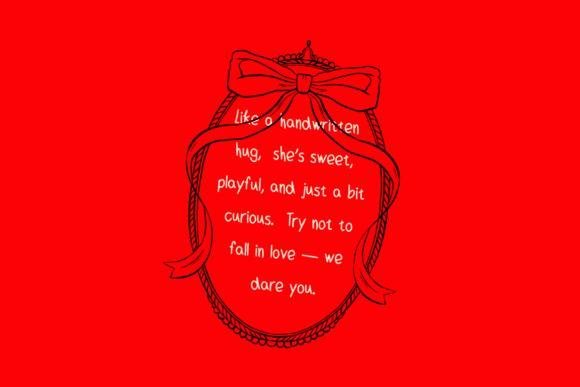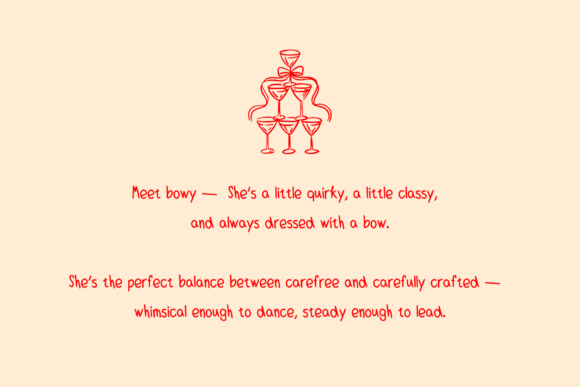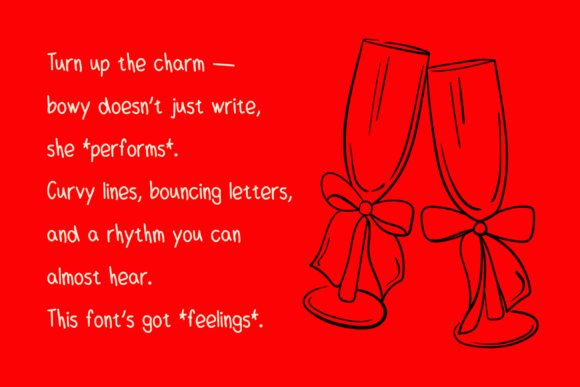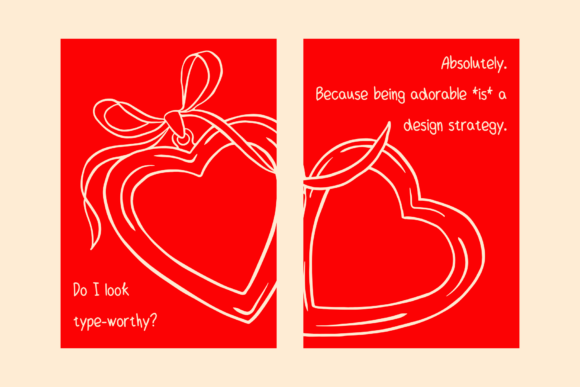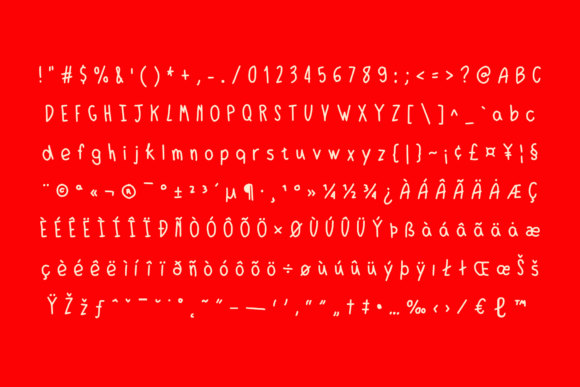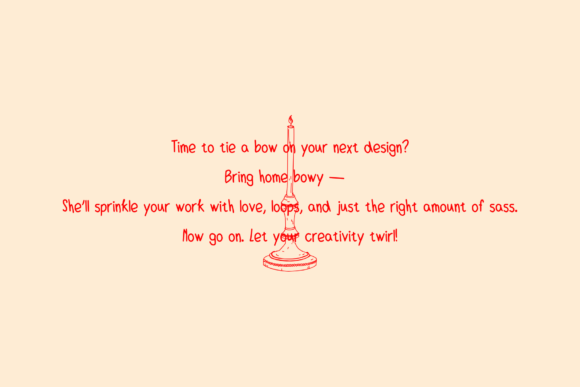
Bowing to the Perfect Font: A Creative’s Dream Come True
Have you ever been inspired by a beautiful handwritten note, the way the words dance across the page with a touch of personality and whimsy? I know I have! There’s something special about seeing a font come alive on paper, and today, I’m thrilled to introduce you to a font that will make your creative heart skip a beat: the Bowy Font.
This charming handwritten font is more than just a pretty face – it’s a valuable tool for designers looking to add a touch of elegance and playfulness to their designs. With 231 expressive glyphs, Bowy Font is perfect for branding, packaging, invitations, greeting cards, and creative social media posts. Whether you’re designing something romantic, quirky, or delightfully fun, Bowy Font is ready to bring your vision to life.
Bowy Font Key Features
- Unique Characteristics: Bowy Font features a distinctive, hand-drawn style with intricate details and subtle texture, giving it a unique and eye-catching appearance.
- Language Support: Bowy Font supports a wide range of languages, including Latin, Cyrillic, and Greek scripts, making it a versatile choice for global design projects.
- Font Weight and Style: The font is available in multiple weights, including Light, Regular, Bold, and Extra Bold, as well as italic and oblique styles, providing a range of options for designers.
- Scalability: Bowy Font is designed to be highly scalable, ensuring that it remains clear and legible at a wide range of font sizes and resolutions.
Bowy Font Review
I recently had the chance to work with Bowy Font, and I must say it’s an interesting addition to my font library. ✨ One of the things that stands out about Bowy is its unique blend of modern and vintage elements. It’s got a certain charm that’s perfect for projects that need a touch of elegance without being too formal.
Here are some specific features that I think work well in Bowy Font:
- ✨ Elegant and refined letterforms that add a touch of sophistication to any design.
- ✨ A wide range of weights and styles, making it easy to find the perfect fit for your project.
- ✨ Good legibility, even at smaller font sizes.
However, I did encounter some limitations while working with Bowy Font:
- ⚠️ Limited support for certain languages, which can be a problem for projects that require multilingual support.
- ⚠️ Not ideal for projects that require a bold, attention-grabbing font. It’s more suited for projects that need a subtle, sophisticated look.
Overall, I think Bowy Font is a solid choice for designers who are looking for a refined, elegant font. It’s not perfect, but it’s a great addition to any font library. With a little creativity and experimentation, you can get some amazing results with Bowy Font.
Tips for Getting the Most Out of Bowy Font
Use Bowy Font for headings and titles to add a touch of elegance and sophistication to your designs.
Experiment with different font sizes and colors to create visual hierarchy and emphasis.
Combine Bowy Font with other fonts to create a unique and eye-catching typography.
Bowy Font is perfect for:
Corporate branding and marketing materials
Editorial and publishing design